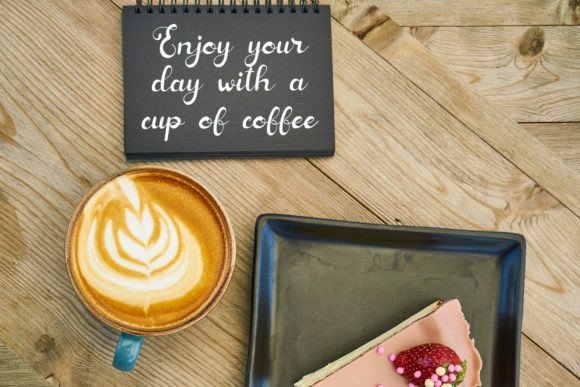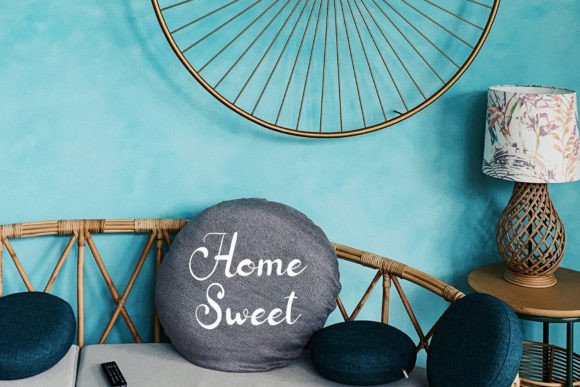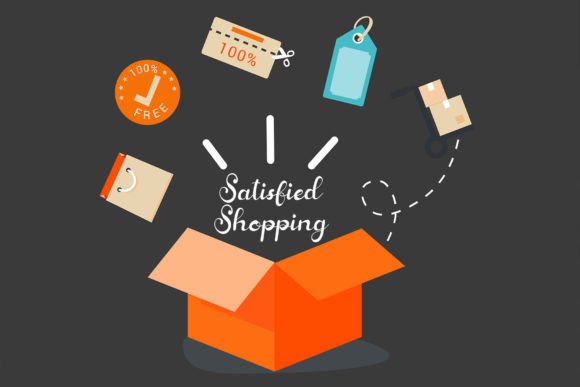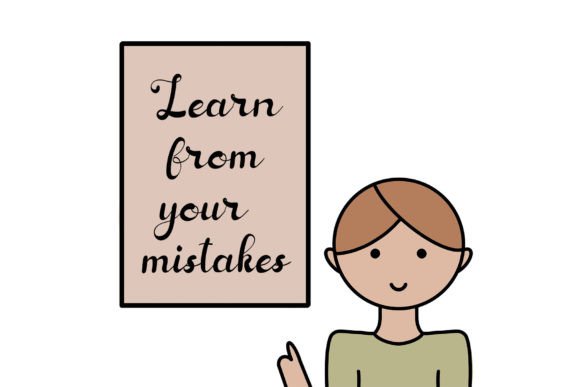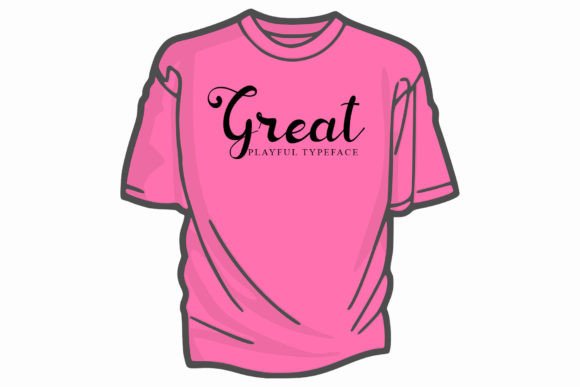
A Handwritten Touch of Elegance: The Aulia Font
Have you ever been working on a design project, staring at a blank canvas, and suddenly, the perfect font idea strikes you? That’s exactly what happened to us when we stumbled upon the Aulia Font. Its unique and elegant touch is like a breath of fresh air for designers looking to add a handwritten charm to their work.
The Aulia Font is a beautifully crafted typeface designed to bring a personal and inviting feel to any design. Whether it’s a wedding invitation, greeting card, billboard, logo, business card, or any other creative project, this font is sure to make a lasting impression. Its versatility and aesthetic appeal make it a valuable asset for designers who want to elevate their work and stand out from the crowd.
Aulia Font Key Features
- Font Family: Aulia Font is a beautiful, elegant, and highly legible font family, suitable for both body text and headings.
- Size: The font family consists of multiple weights and styles, ranging from Thin (100) to ExtraBold (800), allowing for a wide range of design possibilities.
- Resolution: Designed to be highly legible at various resolutions, including 72 dpi, 96 dpi, and 300 dpi, making it suitable for digital and print applications.
- Unique Characteristics: Aulia Font features a unique blend of traditional and modern design elements, with subtle flair and elegance, making it perfect for high-end branding, publishing, and advertising.
- Language Support: Supports multiple languages, including Latin, Cyrillic, and Greek, making it a versatile font family for global design projects.
Aulia Font Review
I recently had the chance to work with the Aulia font, and I must say it’s a unique addition to any design project. ✨ One of the things that stood out to me was its elegant, handwritten feel, which adds a touch of sophistication to any text. It’s perfect for creating a sense of luxury or high-end branding.
Another feature that I appreciate is its versatility. ✨ Aulia font is available in a range of weights, from light to bold, which makes it easy to use in a variety of contexts, from body text to headings.
- Elegant, handwritten feel
- Versatility in weights
- Perfect for luxury or high-end branding
- ⚠️ May be difficult to read at small font sizes
- ⚠️ Limited language support
- ⚠️ May not be suitable for body text in large blocks of text
Overall, I think the Aulia font is a great choice for designers looking to add a touch of elegance and sophistication to their projects. However, it’s essential to consider its limitations and use it judiciously to get the best results.
For optimal results, use Aulia Font in conjunction with a clear and simple design aesthetic.
- Book covers and publishing materials
Alternatives to Aulia Font
Great Vibes Font is a beautiful, modern script font perfect for creating elegant and sophisticated designs. It’s ideal for use in wedding invitations, branding, and advertising materials where a touch of elegance is required.
Compared to Aulia Font, Great Vibes Font has a more refined and polished look, making it suitable for high-end designs. Aulia Font has a more casual and playful feel, while Great Vibes Font is more formal and sophisticated.
Dancing Script Font is a fun and playful script font that’s perfect for creating lively and energetic designs. It’s ideal for use in posters, social media graphics, and other promotional materials where a touch of whimsy is required.
Compared to Aulia Font, Dancing Script Font has a more dynamic and expressive feel, making it suitable for designs that require a lot of energy and movement. Aulia Font has a more subtle and understated look, while Dancing Script Font is more bold and attention-grabbing.
Q: What is the character set of Aulia Font?
Aulia Font supports a wide range of languages, including Latin, Cyrillic, and Greek scripts. The font includes over 1,000 glyphs, covering characters from a-z, A-Z, 0-9, as well as various punctuation marks, symbols, and diacritical marks. The font also includes support for OpenType features, such as ligatures, fractions, and stylistic sets.